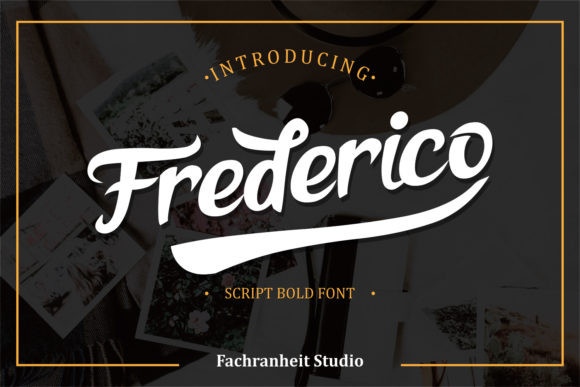
Frederico Font
Frederico Font is perfect for Italian restaurant branding, Mediterranean lifestyle campaigns, luxury fashion magazines, elegant wedding invitations, sophisticated wine packaging, premium hospitality materials, classical art exhibitions, refined cultural events, and upscale European-inspired designs.
What makes Frederico Font exciting is its masterful embodiment of Italian Renaissance elegance that captures the timeless sophistication and artistic heritage of classical European culture through exquisitely crafted letterforms. The font features graceful proportions with distinctive Italian flair that evokes the refined beauty of Renaissance art and architecture, creating an atmosphere of cultural sophistication and artistic excellence. Its carefully balanced character details and classical inspiration make it perfect for brands that want to communicate heritage, artistic refinement, and the enduring appeal of European elegance while maintaining contemporary relevance and international sophistication.
Frederico Font family includes various elegant weights such as Light, Regular, Medium, and Bold variations, often featuring Italian-inspired stylistic alternates and classical decorative elements. The family may include Renaissance-themed ligatures, European ornamental features, and sophisticated symbols that enhance the font's cultural authenticity, providing designers with comprehensive options for creating distinguished typographic compositions that celebrate Italian heritage and classical aesthetics.